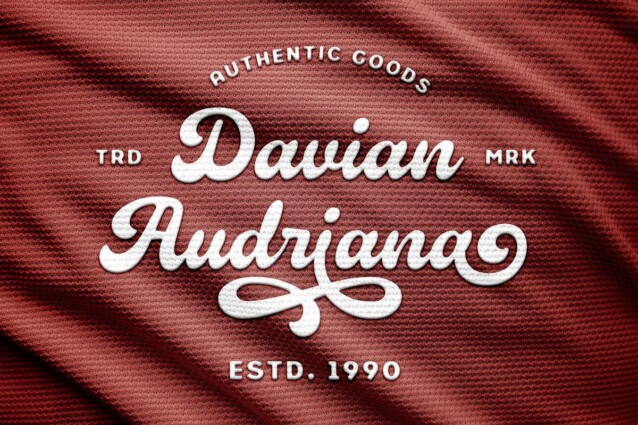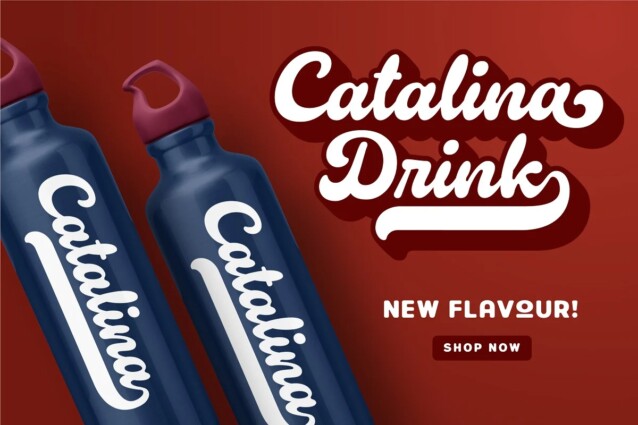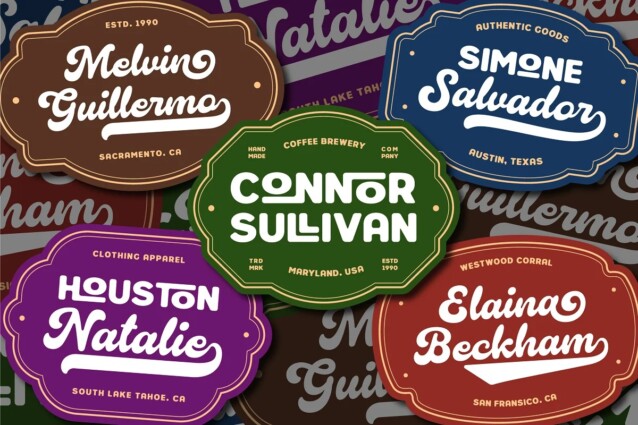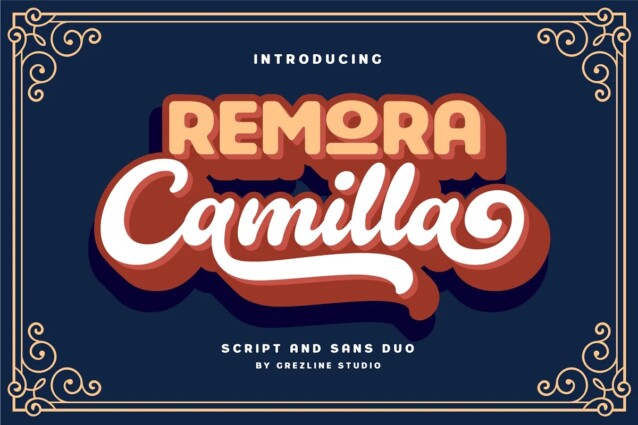
Remora Camilla Font is a font that combines the elegance of a script with a retro, bold aesthetic, creating a visually striking yet easily readable typeface. This font will be an appealing asset to your fonts’ library, as they have the potential to enhance any design project. Remora Camilla is perfect for headings, covers, posters, logos, quotes, product packaging, merchandise, social media and much more!